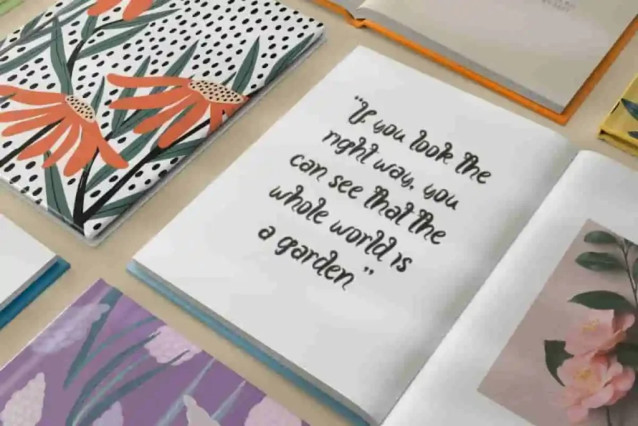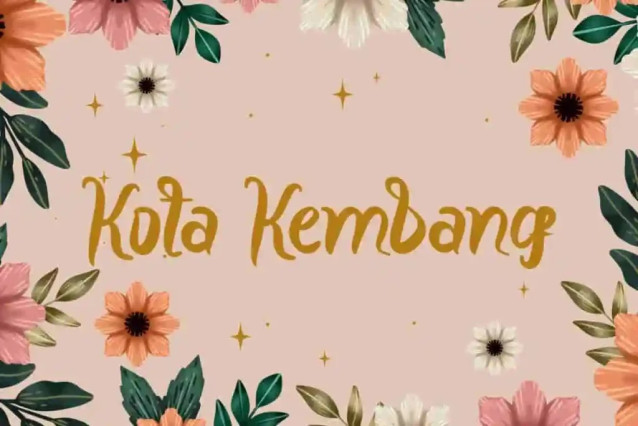
Kota Kembang Font
Kota Kembang Font is a bold modern handwritten font. Inspired by a beautiful garden filled with beautiful flowers. It will bring a natural look to your business, such as artist, author, botanical, bridal boutique, cosmetic, event organizer, florist, graphic design, photography, printing, publishing, skincare, writer, etc.
Kota Kembang Font includes full set of Uppercase and Lowercase Basic Characters, Number, Punctuation and Symbol. Ideal for presenting charming designs, such as apps, billboard, brand identity, brochure, cover, flyer, header, invitation, label, logo design, packaging design, poster, quote, screen print, signage, stationery, sticker, thank you card, title, watermark, website, and more.